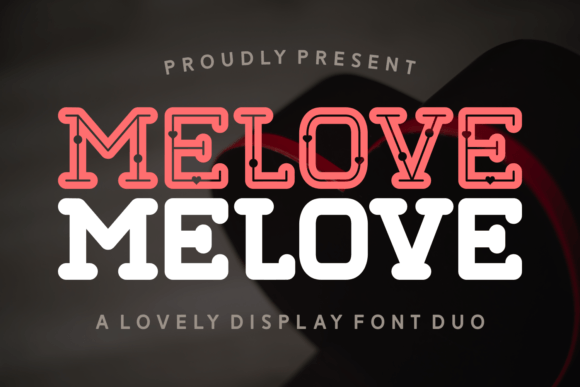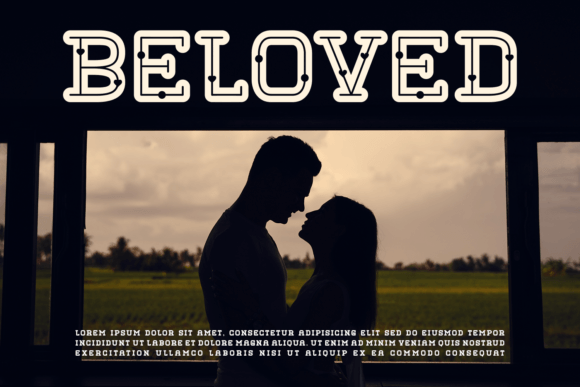
About Melove
Melove is a contemporary slab serif font that is a minimalistic, sans-serif typeface that boasts sharp lines, clean edges, and bold letters. Perfect for headlines and titles, it adds a touch of elegance to modern designs.